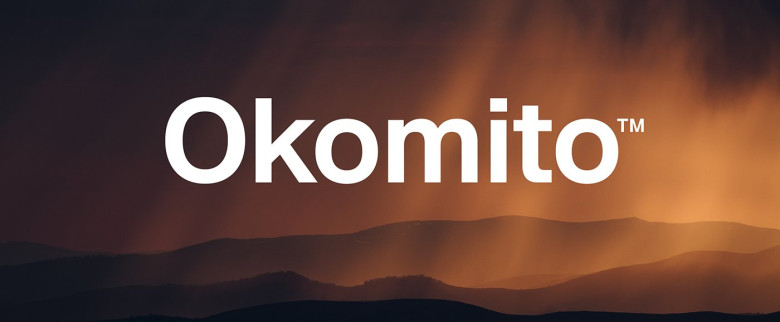
Okomito™ Medium Font
Okomito Font is a sans serif inspired by the classic typefaces that were imbued with a sense of functionality, boldness and industrial strength.
Trade Gothic, Helvetica, Akzidenz Grotesk, Univers and all the great grotesques were the inspirations and influences in creating Okomito. Flexibility and neutrality are in mind when Okomito was conceptualised.